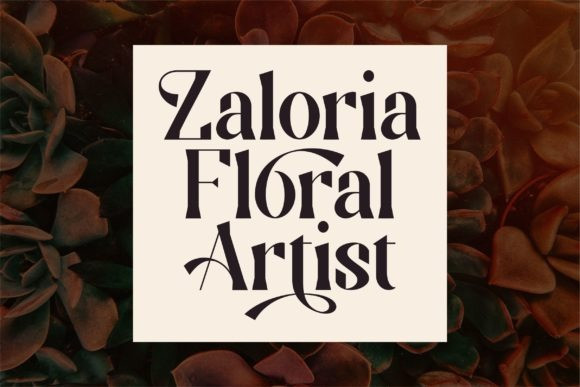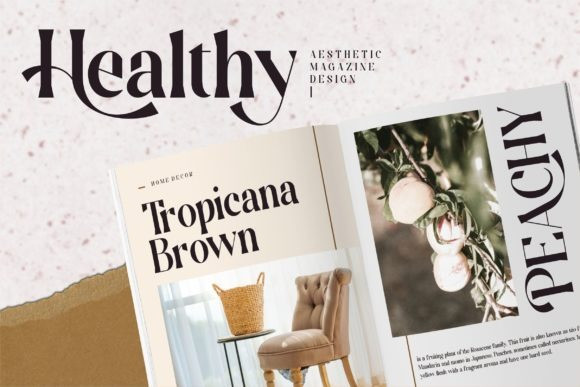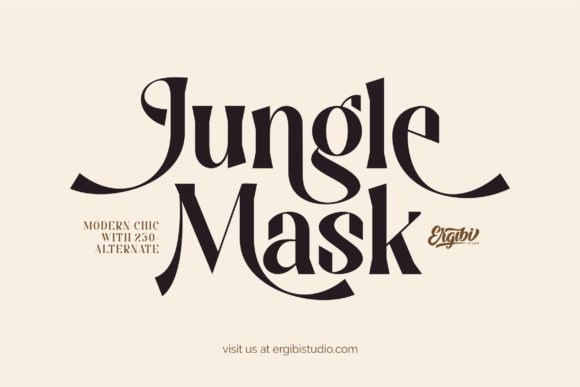
Jungle Mask Font
Jungle Mask Serif Font is a modern and exquisite display retro  font. This font is PUA encoded which means you can access all of the glyphs and swashes with ease!
Fall in love with its incredibly versatile style and use it to create spectacular designs!